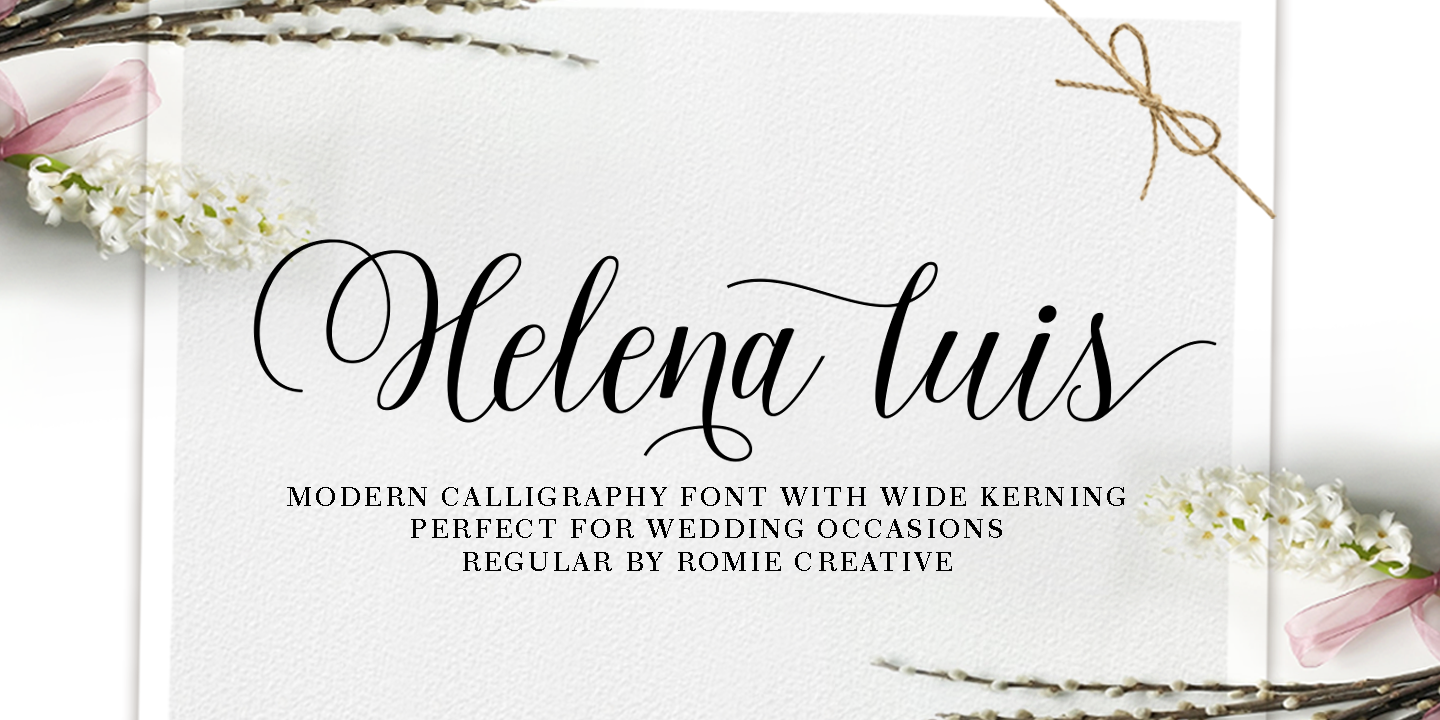
Helena Luis Font is an exquisite and versatile typeface, perfect for designs that call for elegance, warmth, and a touch of personal charm. Picture it gracing elegant wedding invitations, adding sophistication to high-end fashion branding, or creating a heartfelt appeal in handcrafted product labels. It’s an ideal choice for stylish social media content, refined editorial layouts, and beautiful photography watermarks. Its graceful flow makes it exceptionally well-suited for signature logos, personal branding, and any project where a sense of artistry and bespoke quality is desired. From delicate greeting cards to compelling website headers, Helena Luis Font adds a unique, handcrafted touch.
What makes Helena Luis Font truly exciting is its captivating blend of classic elegance and modern expressiveness. It possesses a fluidity and natural feel that makes text appear authentically hand-lettered, yet with the polished consistency of a professionally designed font. Designers are often enchanted by its ability to convey emotion and personality, transforming ordinary text into a work of art. It’s a font that whispers sophistication and individuality, making your message feel intimate and exclusive. The subtle variations in its strokes and its delicate curves contribute to its unique character, ensuring your designs stand out with timeless appeal.
The Helena Luis Font family typically offers a range of styles designed to enhance its versatility for various creative applications. While the exact configurations may vary, you might find options such as a beautiful Regular weight, often accompanied by an elegant Italic, and sometimes a bolder version for emphasis or a lighter weight for subtle accents. Some families might even include stylistic alternates or ligatures that allow for even more customization and a truly bespoke feel. These variations ensure that Helena Luis Font can adapt to different design needs, maintaining its charm whether used for prominent display text or more nuanced body copy.